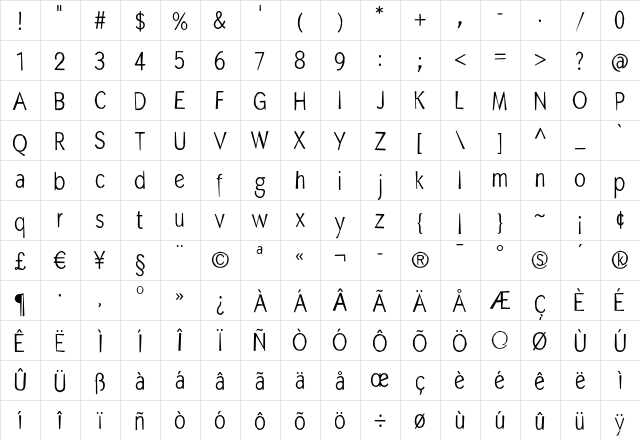
Design Context for MKAbelRough Typeface
MKAbelRough trades polish for personality, using distressed and eroded forms to bring grit and attitude to creative work.
Suited to punk-influenced zines, underground music branding, streetwear, and raw, anti-corporate design.
Pro Tip: Pair MKAbelRough with intentionally raw or lo-fi design elements. Fighting against it with overly polished surroundings will undermine its personality.